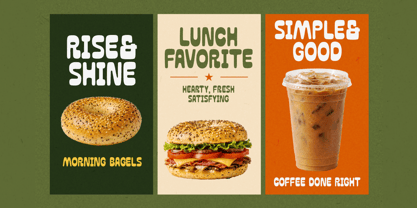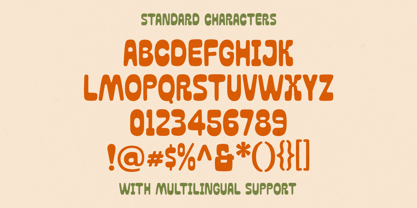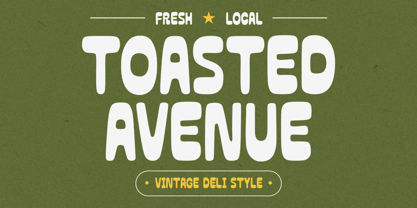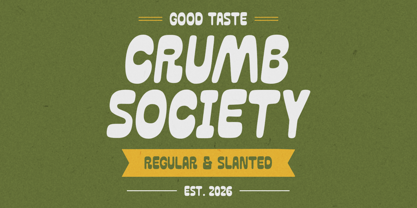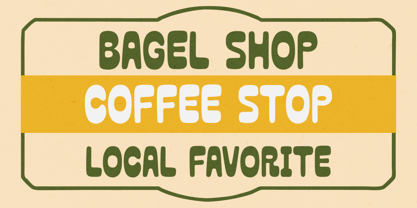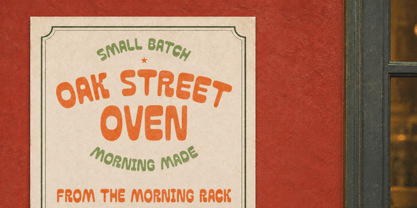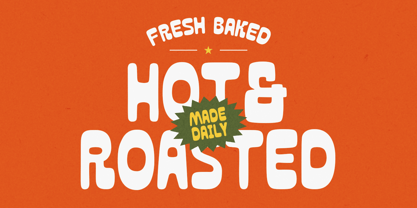
Toasted Avenue
Toasted Avenue is a bold display font inspired by vintage deli signs, cozy cafés, and classic neighborhood food spots. Its chunky shapes, rounded corners, and handcrafted feel create a warm and welcoming look that stands out on menus, packaging, logos, posters, and restaurant branding. With a nostalgic charm and friendly personality, Toasted Avenue brings the flavor of old-school food culture into modern design.
Features :
• Uppercase & lowercase
• Numbers and punctuation
• Alternates & Ligatures
• Multilingual Support